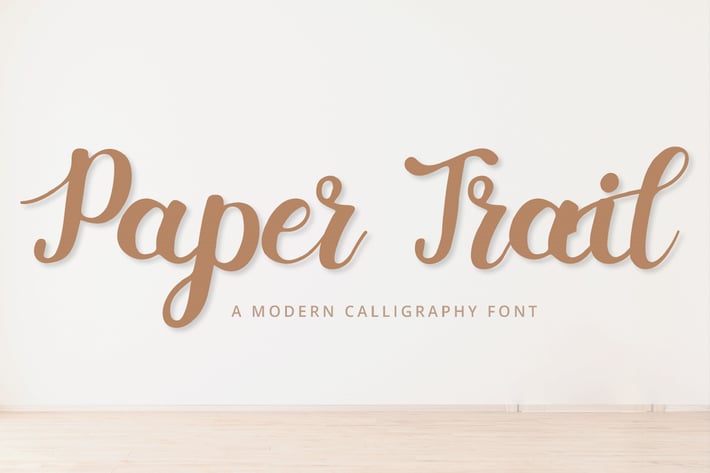
Paper Trail
Are you ready to discover your inner Mark Twain?
Ready to enhance your branding and truly stand out from your competition? Looking for that “something” that’ll make your audience go WOW and clients get on board immediately?
Maybe you’re looking for the perfect font to use on your wedding invitations or skincare branding?
Whatever you need - we’ve got JUST the thing for you!
Introducing Paper Trail - A Modern Calligraphy Font.
This gorgeous & fun calligraphy font can be used for a host of different content needs and projects. Use it for your headings, logos, business cards, printed quotes, invitations, packaging, resumes, and even your website or social media branding!
Excite your audience, clients, or guests with this versatile, elegant font.